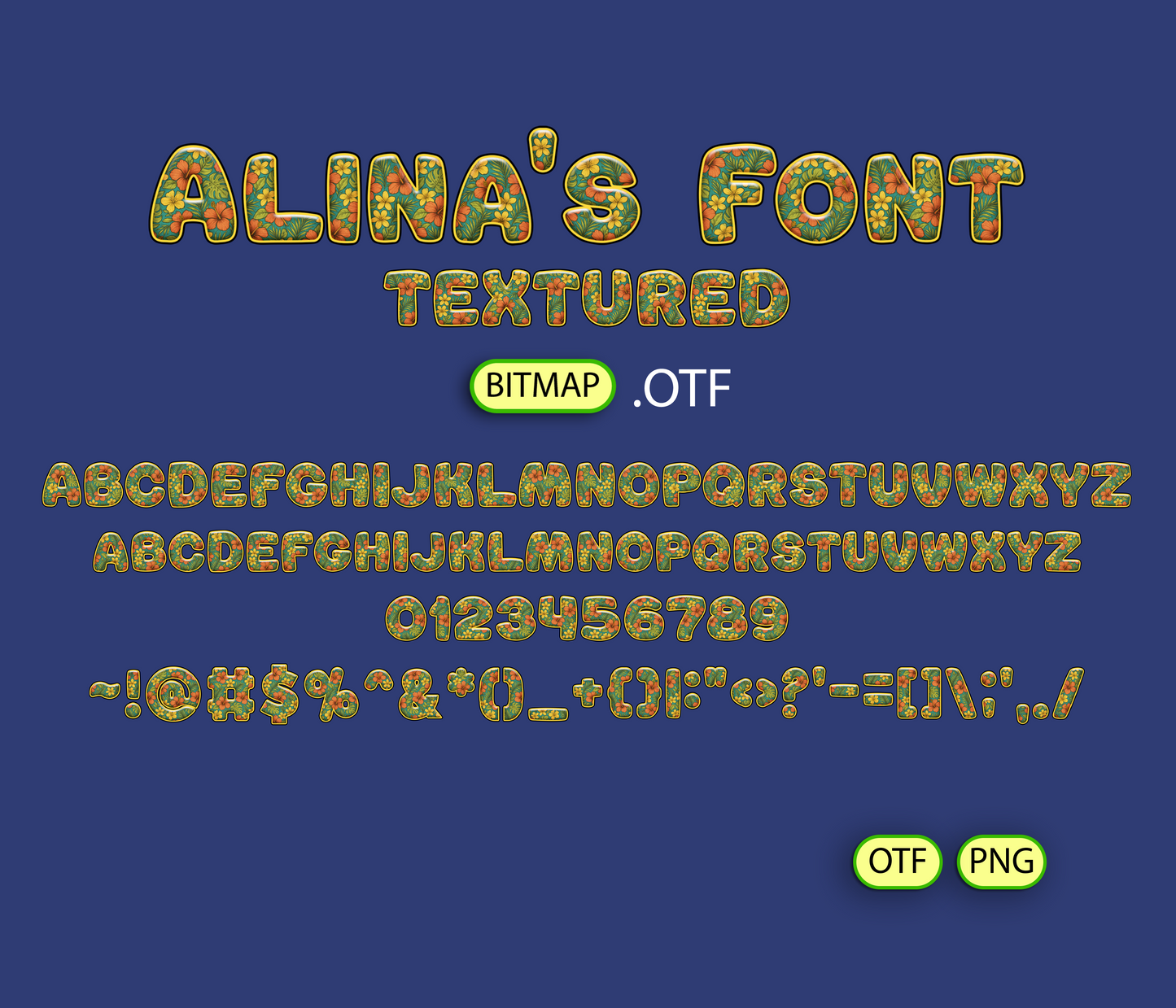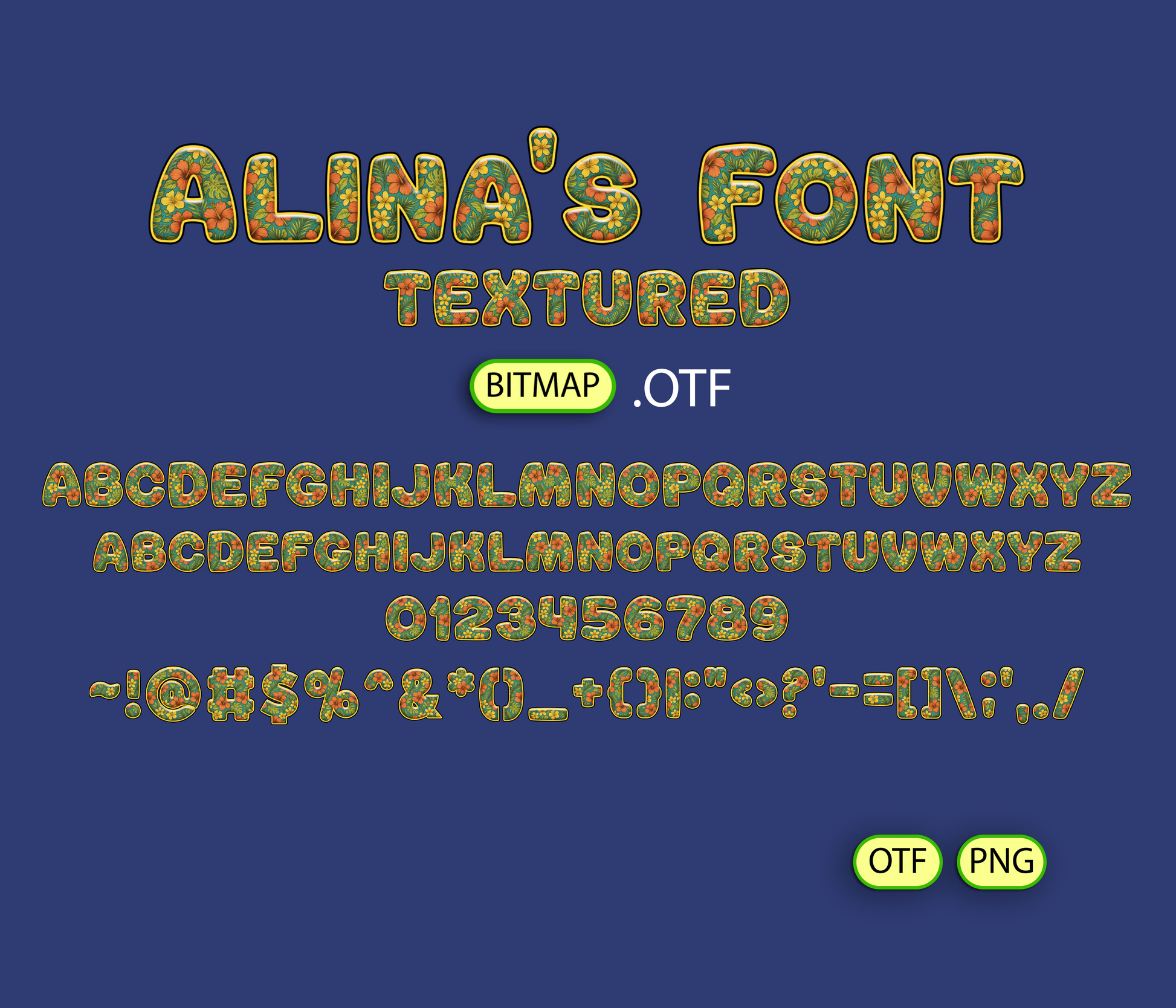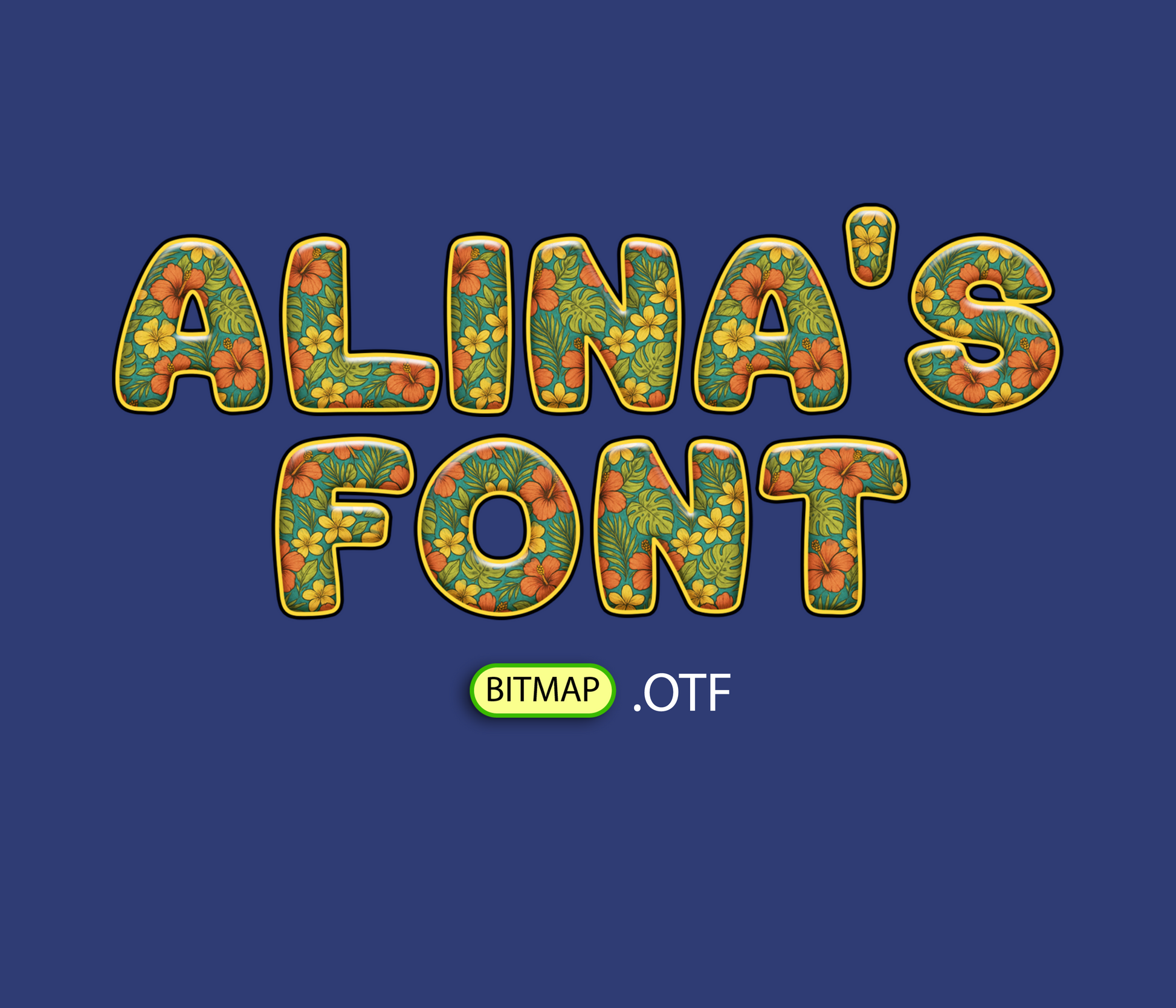
FREE Maui Sunset Pattern Font
Maui Sunset Typeface Textured
Transport yourself to the mesmerizing realm of volcanic islands with our Maui Sunset Typeface, capturing the magic of lava flows, pristine coastlines, and tropical euphoria. Perfect for luau organizers, coconut water brands, island boutiques, and design professionals, this font delivers the carefree, ocean-kissed essence of Polynesian culture to your creations. Craft magnificent displays, island-style merchandise, or multimedia content with the dreamy, paradise-infused spirit of tiki torches and sapphire seas.
Our Maui Sunset Typeface showcases organic, breeze-sculpted forms and relaxed typography reflecting the serene yet festive nature of archipelago lifestyle. Ideal for:
- Entertainment Industry: Create memorable branding, product labels, and marketing campaigns for beach resorts, mai tai bars, and tropical clothing lines
- Children's Content: Exceptional for island adventure tales, Hawaiian-themed celebrations, and learning resources exploring marine ecosystems
- Online Media: Enhance digital presence, personal websites, and social channels with sunset-inspired headers and visuals that convey tropical bliss and exploration
- Educational Materials: Integrate authentic appeal into island heritage studies, getaway planning tools, and advertisements for secluded paradises
- DIY Projects: Add beachfront charm to save-the-dates, memory books, and interior accents inspired by the magnificence of palm fronds and ocean mist